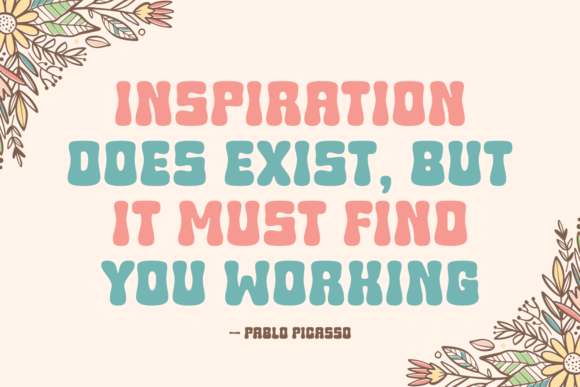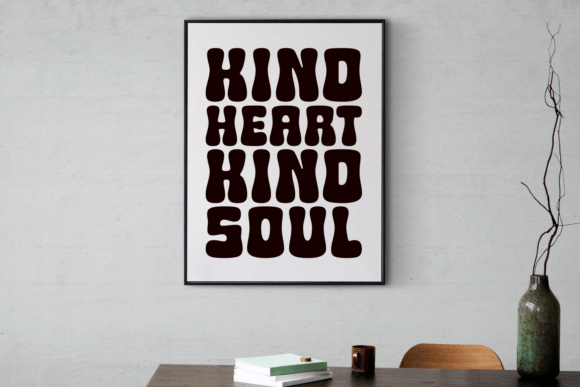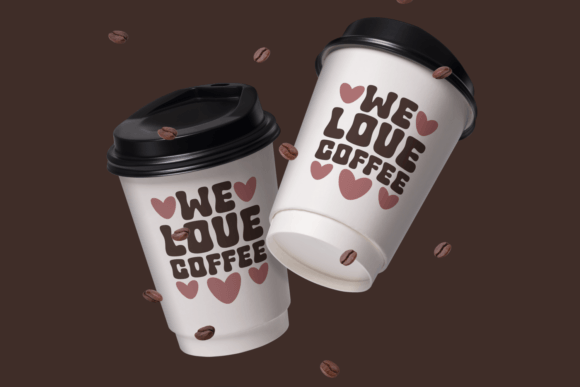
Introduction to Smaco Flower Font
Smaco Flower is a classic retro-style display font.
Showcasing groovy characters and a joyful look, this thick and beautiful typeface is perfect for expressing your creative ideas Try it on posters, apparel, kids’ t-shirts, headlines, banners, signage, invitations, etc, and you will love the results.
Smaco Flower Font offers exceptional quality and versatility, making it a valuable addition to your design toolkit. Whether you’re creating for personal projects or commercial use, Smaco Flower Font delivers professional results.